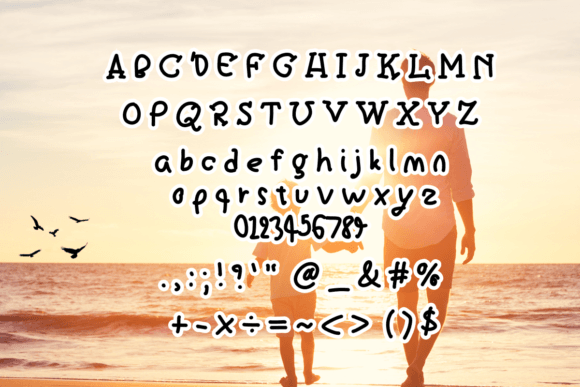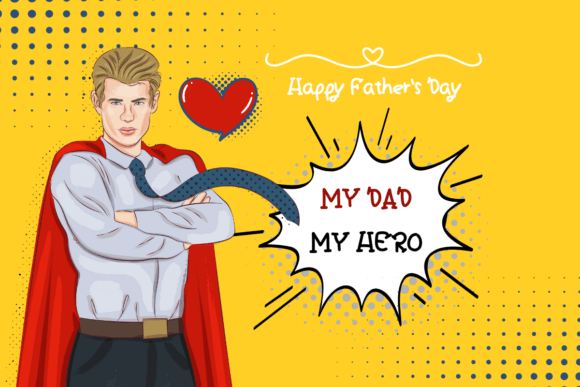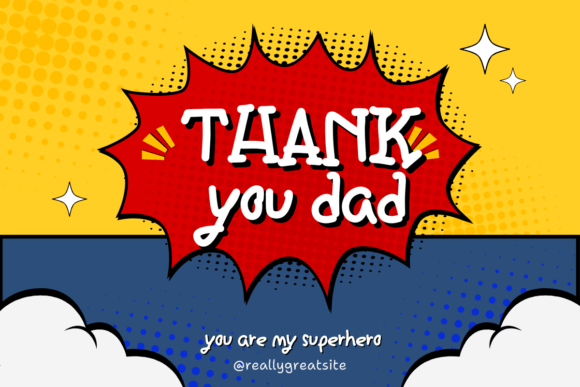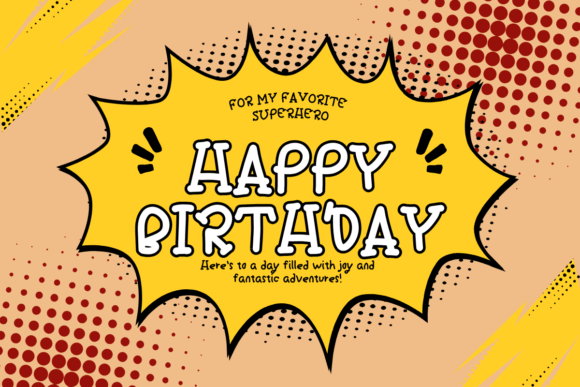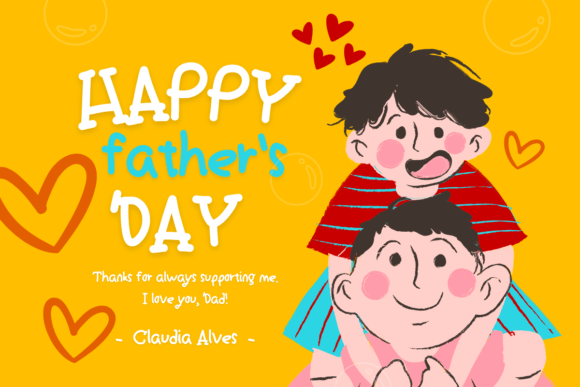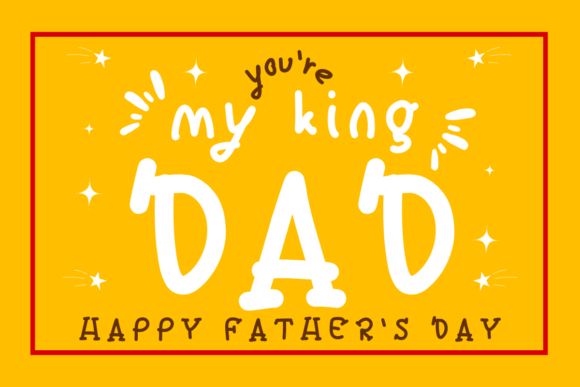
Daddy Font: The Sweet and Friendly Handwritten Font for Your Creative Projects
Are you a designer or crafter looking for a font that can add a personal touch to your creative projects? Look no further than Daddy Font, a sweet and friendly handwritten font that’s perfect for a wide range of designs. With its natural and unique style, Daddy Font is incredibly versatile and can be used in various contexts, from digital products to print materials. The only limit is your imagination!
What Makes Daddy Font So Special?
Daddy Font is a one-of-a-kind handwritten font that’s designed to bring a sense of warmth and friendliness to your designs. Its natural and unique style makes it stand out from other fonts, and its versatility ensures that it can be used in a variety of creative projects. Whether you’re designing a logo, creating a social media graphic, or crafting a handmade product, Daddy Font is the perfect choice.
Key Features of Daddy Font
- Handwritten style: Daddy Font has a beautiful, handwritten style that’s perfect for adding a personal touch to your designs.
- Natural and unique: The font’s natural and unique style makes it incredibly fitting for a wide range of designs.
- Versatile: Daddy Font can be used in various contexts, from digital products to print materials.
- Easy to read: The font is easy to read, making it perfect for body text and headlines.
How to Use Daddy Font in Your Designs
Daddy Font is incredibly easy to use, and its versatility ensures that it can be used in a variety of creative projects. Here are some ideas to get you started:
- Logos and branding: Use Daddy Font to create a unique and memorable logo for your business or brand.
- Social media graphics: Add a personal touch to your social media graphics with Daddy Font.
- Handmade products: Use Daddy Font to create beautiful and unique labels, tags, and packaging for your handmade products.
- Digital products: Add a personal touch to your digital products, such as ebooks, printables, and planners.
Tips for Getting the Most Out of Daddy Font
Here are some tips for getting the most out of Daddy Font:
- Experiment with different colors: Daddy Font looks great in a variety of colors, so don’t be afraid to experiment and find the perfect color for your design.
- Pair with other fonts: Daddy Font pairs well with other fonts, so try pairing it with a bold font for a striking contrast.
- Use it consistently: Use Daddy Font consistently throughout your design to create a cohesive look.